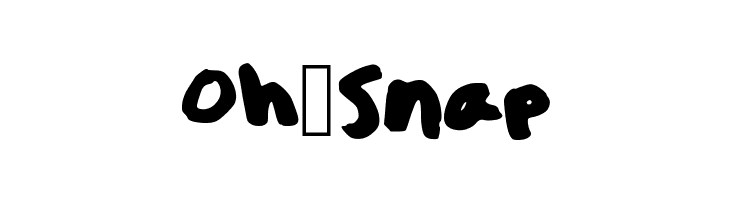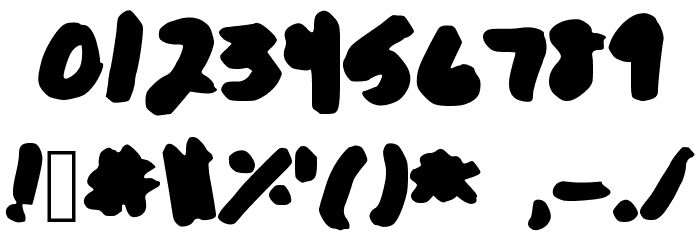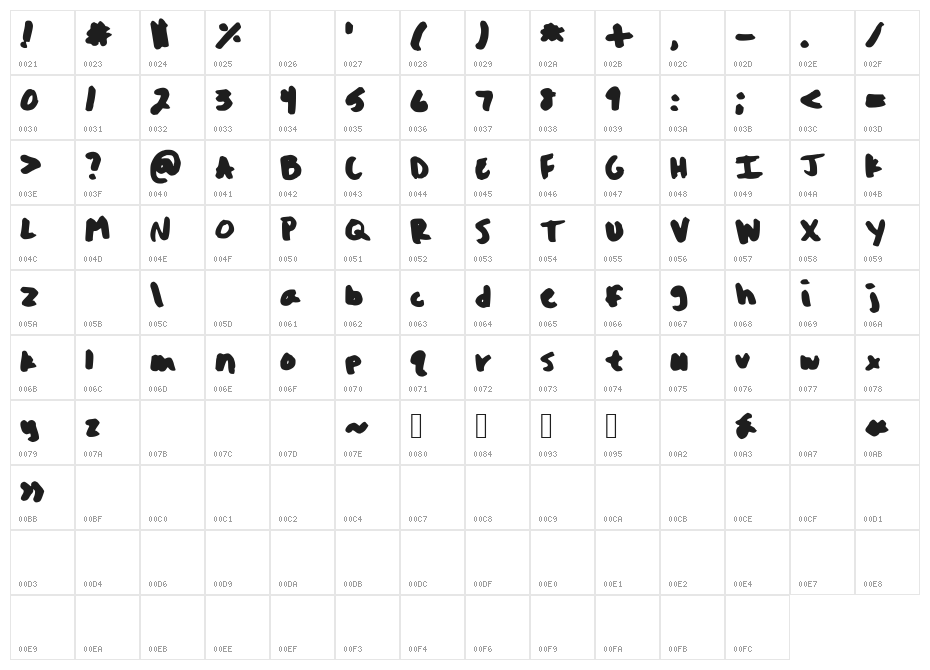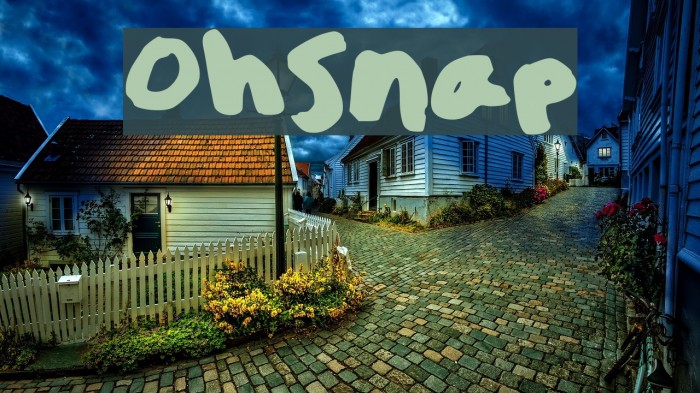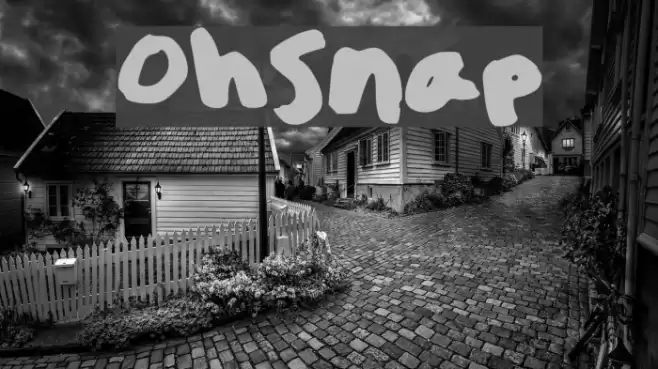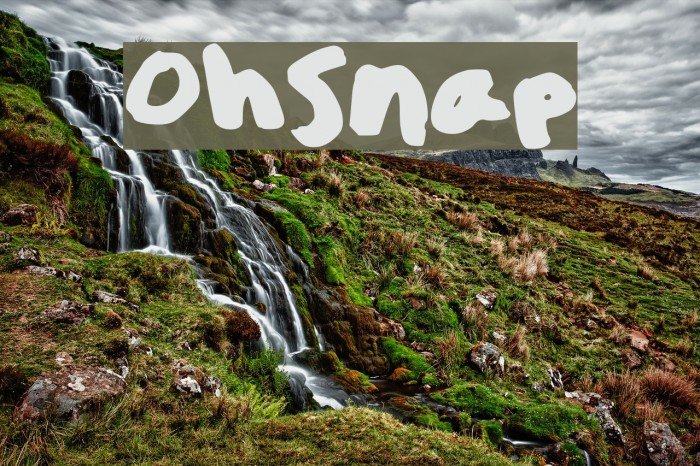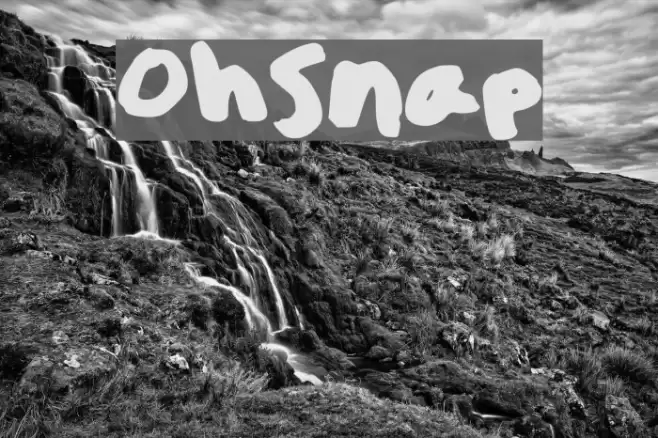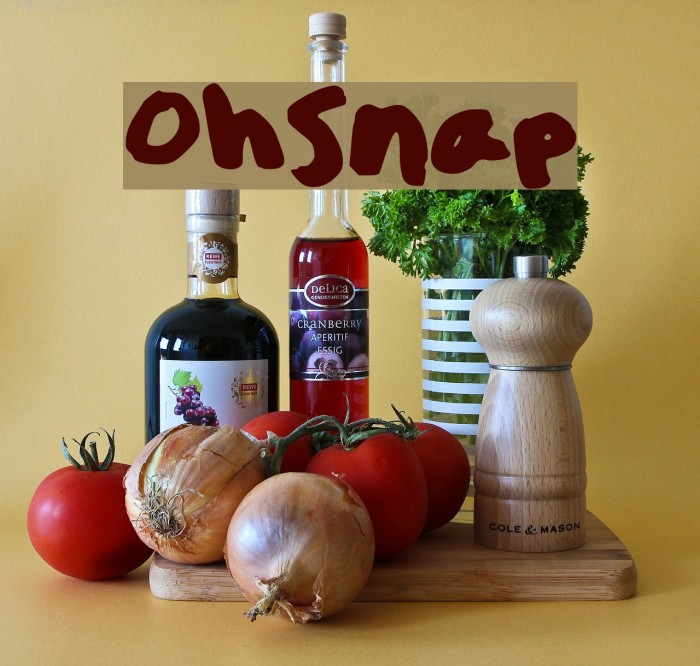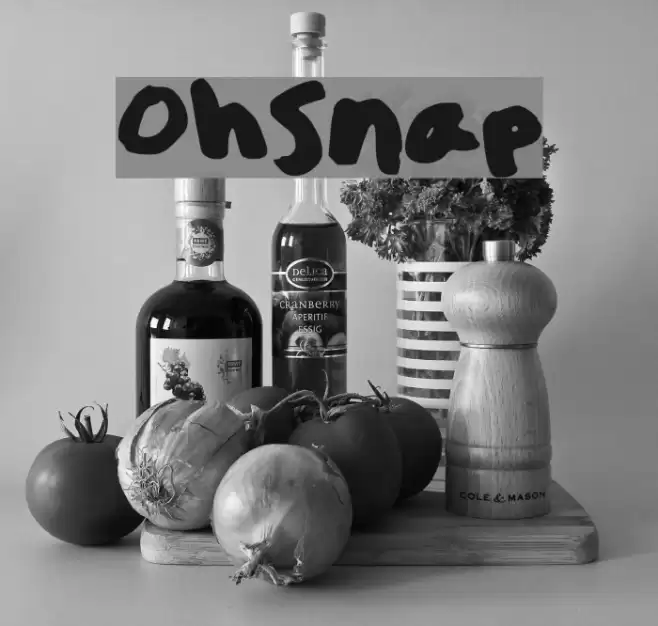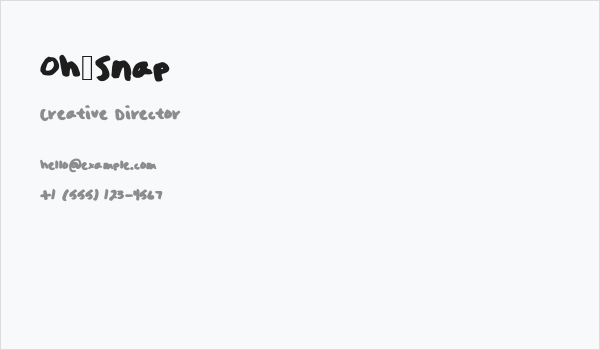
Oh_Snap Font
Oh_Snap Description
This font features a bold and playful handwritten style, characterized by thick, uneven strokes that give it a casual and energetic appearance. The letters are rounded and slightly irregular, adding a sense of spontaneity and fun. The uppercase and lowercase letters maintain a consistent style, with the lowercase letters being slightly smaller but equally bold. Numbers and special characters are designed to match the playful aesthetic, making them suitable for informal and creative projects. The overall look is dynamic and eye-catching, perfect for designs that require a personal touch.
| Overall Style | Playful, Casual |